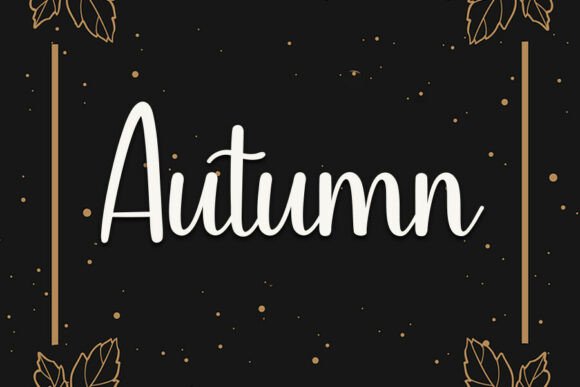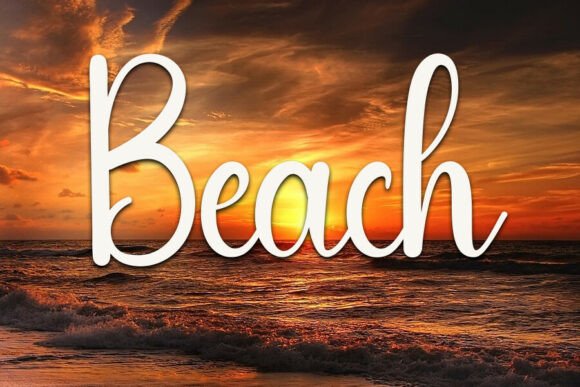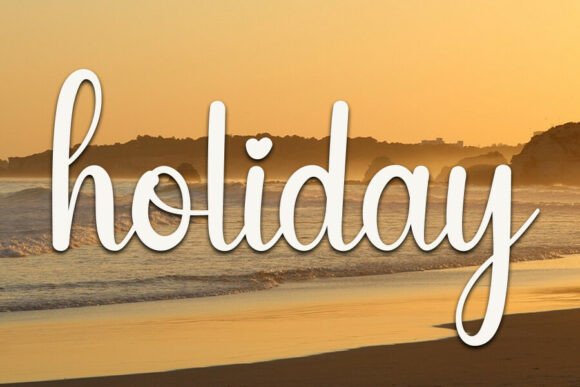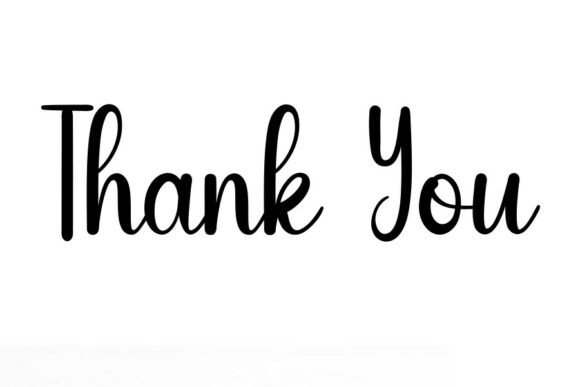
Introduction to Shiny Font
Have you ever stared at a blank page, waiting for that spark of creativity to hit you? For designers, this moment is all too familiar. It’s the moment when the perfect font can make all the difference. Imagine being able to add a touch of whimsy and personality to your next project, without sacrificing high quality and professionalism. This is where the Shiny Font comes in – a simple yet effective handwritten font that’s guaranteed to bring a natural feel to any design.
As a valuable design resource, the Shiny Font is perfect for a wide range of creative projects, from greeting cards to headlines. Its versatility and ease of use make it a must-have for any designer looking to add a touch of personality to their work. And the best part? The Shiny Font is available for a free download, making it an accessible addition to any design arsenal.
Whether you’re working on a personal project or a client brief, the Shiny Font is sure to impress. Its transparent background and clean lines make it a versatile design element that can be used in a variety of contexts. So why not give it a try and see the impact it can have on your next creative project?
Key Features of Shiny Font
- Transparent background: The font features a transparent background, allowing for seamless integration into designs.
- Customizable: The font’s design allows for easy customization, making it a valuable resource for designers working on creative projects.
- Size: The font is designed to be scalable, making it suitable for use in a range of creative projects, from small logos to large-scale designs.
Honest Review: Shiny Font
As a designer, I’m always on the lookout for high-quality design resources to enhance my creative projects. Shiny Font is one of the many fonts I’ve come across, and I’m excited to share my honest review with you.
What works well about Shiny Font is its versatility. It’s a free download, which is a major plus for designers on a budget. The font is also available in a transparent background, making it easy to use in various design scenarios. ✨ I appreciate how easy it is to work with, and the font is definitely a great addition to any design arsenal.
- High-quality font with a professional look and feel
- Transparent background for easy use in various design scenarios
However, there are some limitations to consider. ⚠️ For one, the font may not be suitable for all types of projects. Additionally, the font’s size and weight may not be as extensive as some other fonts on the market. But overall, Shiny Font is a solid choice for designers looking for a reliable and versatile font.
Overall impression: Shiny Font is a great addition to any designer’s toolkit. It’s a high-quality font that’s easy to work with and versatile enough to be used in a variety of creative projects. If you’re looking for a reliable font that won’t break the bank, Shiny Font is definitely worth considering.
Shiny Font is a high-quality, versatile design resource ideal for creative projects. Its transparent background and stylish design make it perfect for adding a touch of sophistication to your work.
Shiny Font is ideal for use in creative projects such as:
- Print materials